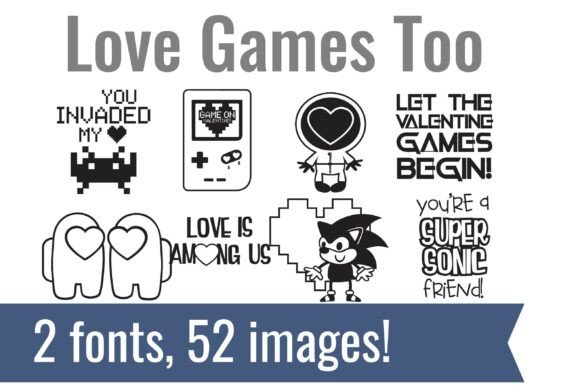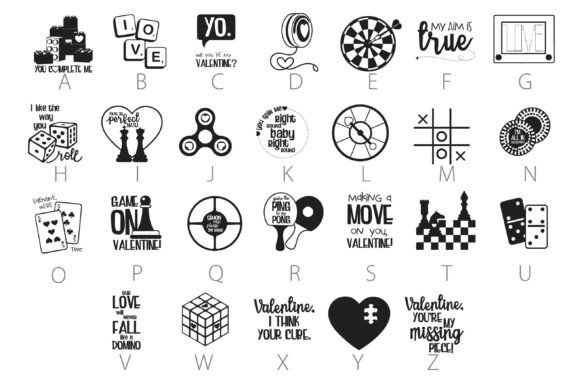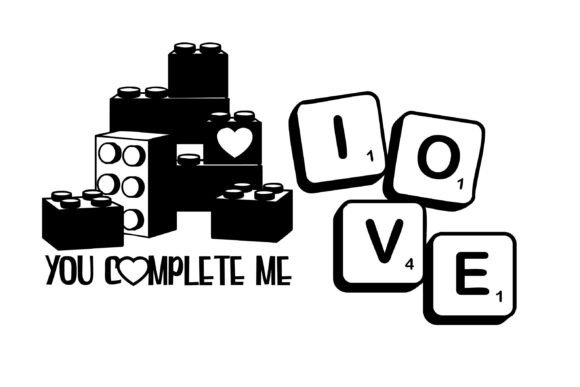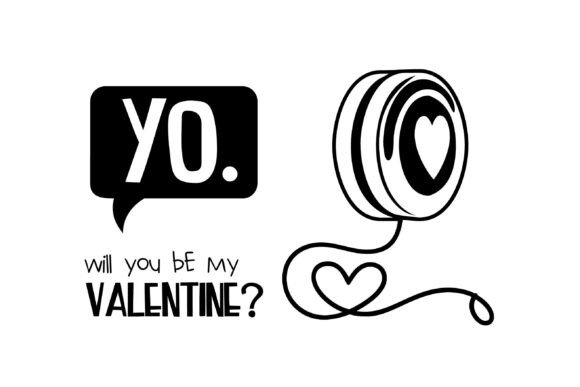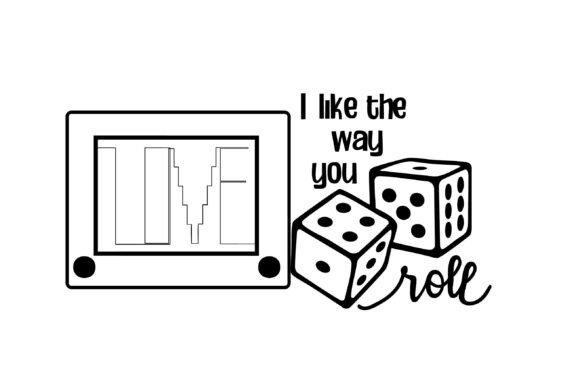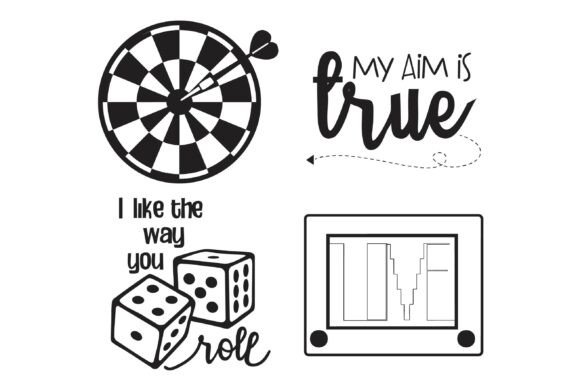
Introduction to Love Games Font
Unlock endless creativity with two perfectly coordinated Love Games fonts.
There are two dingbat fonts in this Love Games bundle, featuring the cutest, retro games with an underlying Valentineโs theme Level up your romantic designs with Love Games font, a collection of 52 dingbats inspired by classic toys, board games, and puzzles.
Key Features of Love Games Font